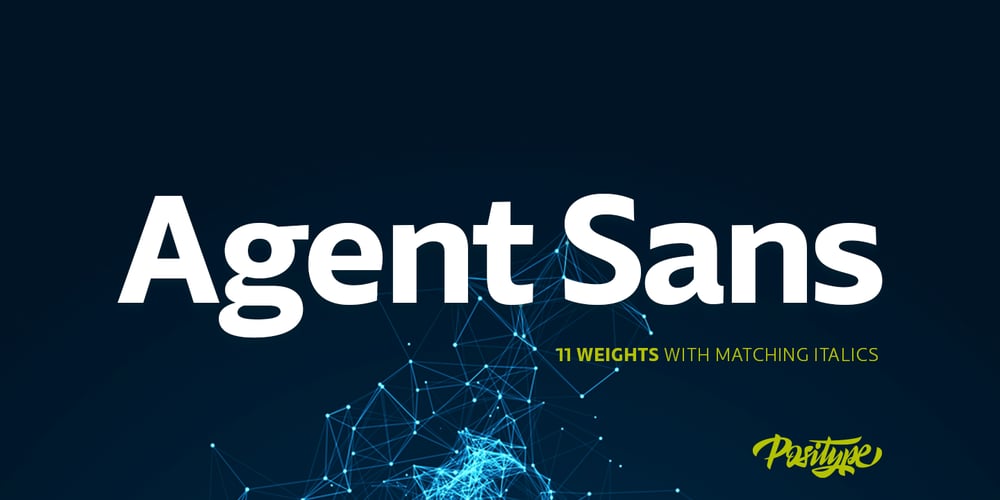
Agent Sans Font Family was designed by Neil Summerour and published by Positype. Agent Sans contains 22 styles and family package options. Agent Sans is an intentional departure. It ignores the cold, unemotional flavor of geometric typefaces and current trends, and instead opts for warmth, personality, movement. In order to stand out, Agent Sans is filled with everything it can—small caps, 6 numeral sets, fractions, super- and subscripts, case-sensitive glyphs, dingbats, expanded language support, and true italics drawn to complement the uprights… not just to skew alongside them.Agent Sans is economical while maintaining its distinctive, expressive look. Perfect for branding for print and screen, and digital usage, the flexible weights available allow for pinpoint selection at whatever size. Simply put, Agent Sans is meant to be used, and used how you see fit.